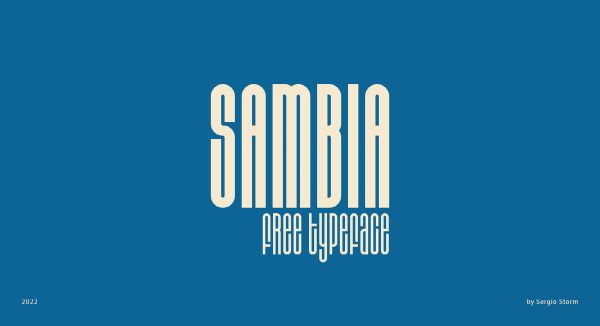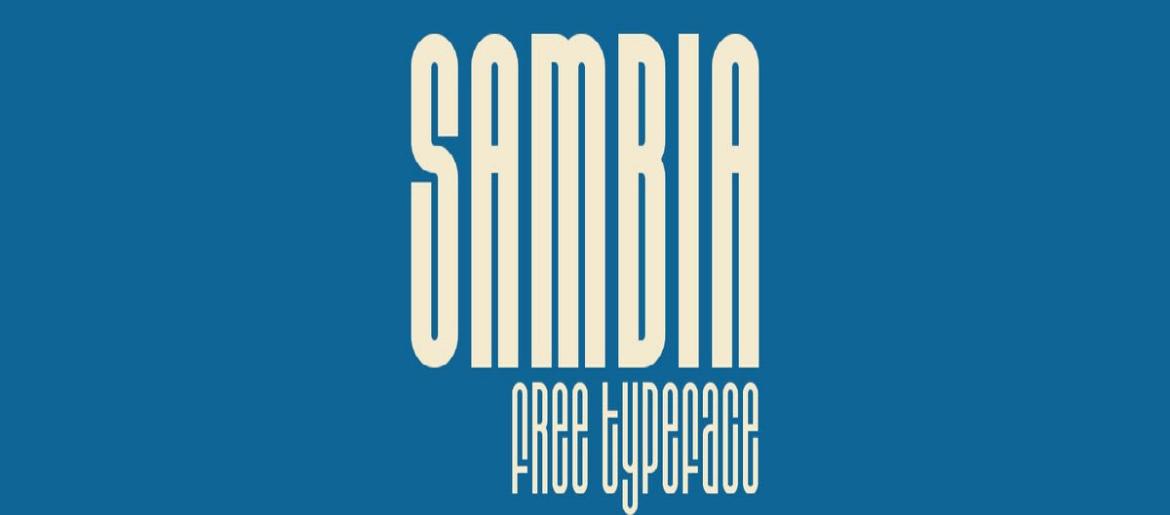
SAMBIA Font
SAMBIA by Sergey Mikheev is a geometric font that channels the concentrated energy of Bauhaus design into a monoweight, extra-condensed display family. Its letterforms are built on clean geometric principles — sharp corners, closed apertures, minimal variation in stroke weight — and carry that first-half-of-the-twentieth-century sense of disciplined economy and functional elegance. Available in Regular and Bold, SAMBIA covers uppercase and lowercase letters, numerals, punctuation, symbols, and multilingual support across Latin, Latin Extended, and Cyrillic scripts. Free for personal use.
SAMBIA is a Bauhaus-inspired condensed geometric display typeface in our free font collection, designed by Sergey Mikheev — a type designer based in Saint Petersburg, Russia, with a focused interest in clean, architecturally influenced letterform systems built for impact. Browse our full library of free fonts and discover more distinctive typefaces crafted by independent designers around the world.